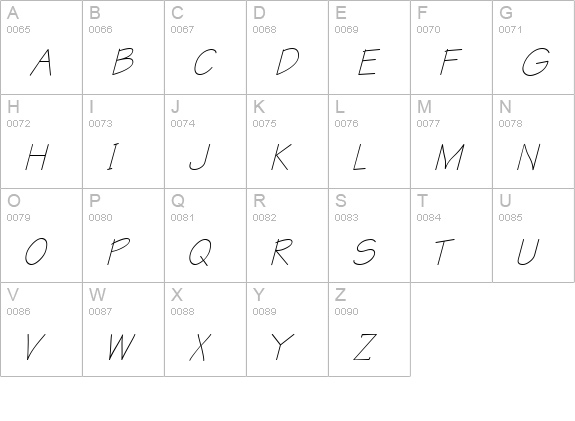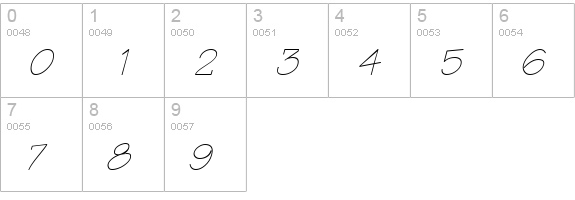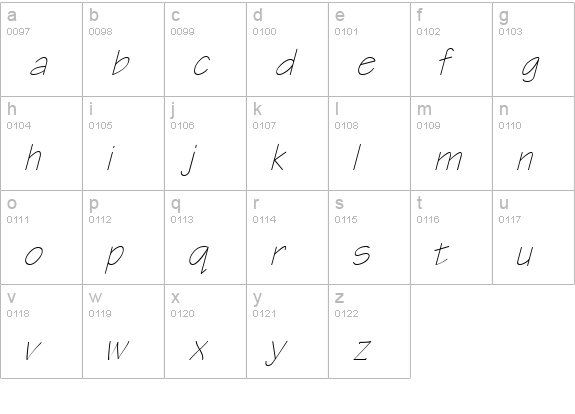
QTTechtone Italic Font Details
QTTechtone Italic is a distinctive, italic variant in the QTTechtone typeface family \xE2\x80\x94 well suited to design and typography projects.
QTTechtone Italic is a modern and sleek font that effortlessly combines elegance with a touch of edginess. With its unique italic style, it adds a sense of sophistication to any design project. This font is perfect for those who want to make a bold statement while still maintaining a sense of professionalism. The QTTechtone Italic font is characterized by its clean lines and sharp angles, giving it a distinct and modern look. It is designed to capture attention and stand out from the crowd. Whether you're creating a logo, designing a website, or working on a marketing campaign, this font will enhance your message and leave a lasting impression. One of the best features of QTTechtone Italic is that it is available for free download at FontsMarket.com. This means that you can easily access this font and incorporate it into your projects without any hassle. The fact that it is freely available only adds to its appeal, making it a popular choice among designers and creatives. With QTTechtone Italic, you have the freedom to explore and experiment with different design possibilities. Its versatility allows it to be used across a wide range of industries and applications. Whether you're creating a sleek corporate brochure, a trendy fashion magazine, or a cutting-edge tech website, this font will elevate your design to new heights. In conclusion, QTTechtone Italic is a stylish and modern font that is sure to make a statement. Its unique italic style and clean lines set it apart from other fonts, making it a favorite among designers. And the best part? It is freely available to download at FontsMarket.com, allowing you to easily incorporate it into your projects and unleash your creativity. So why wait? Start using QTTechtone Italic today and take your designs to the next level.